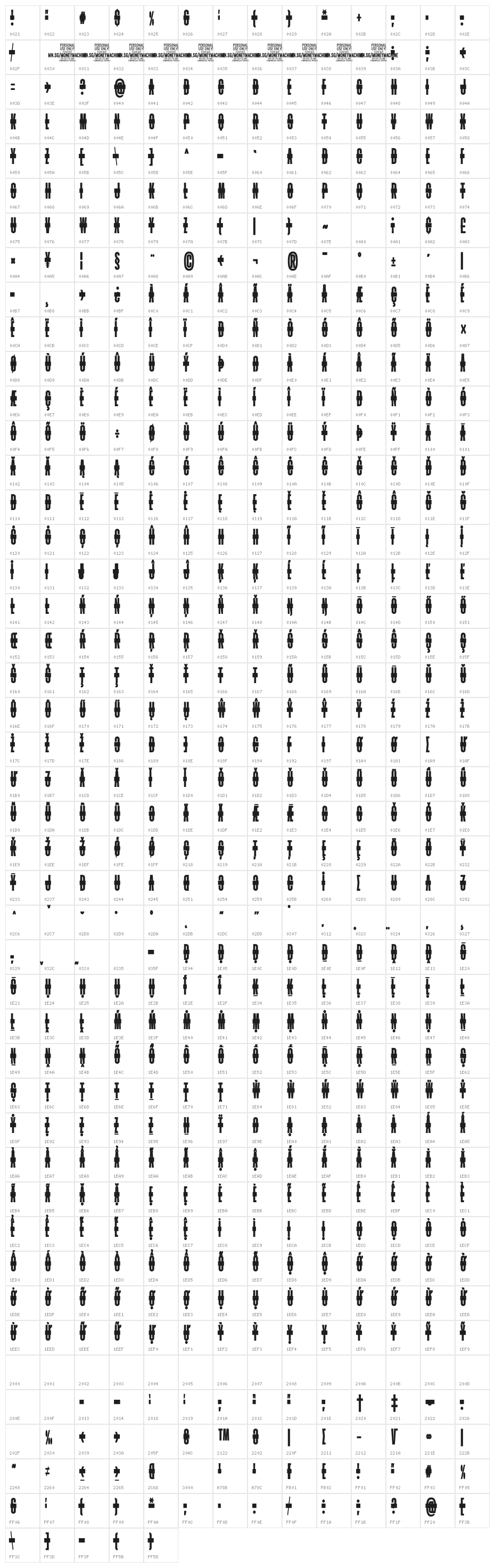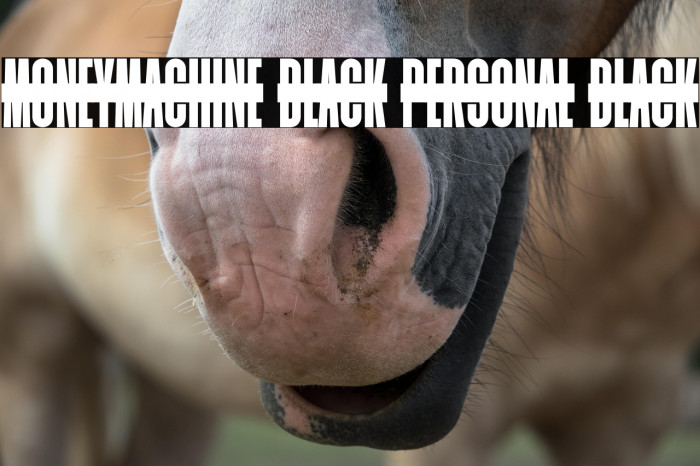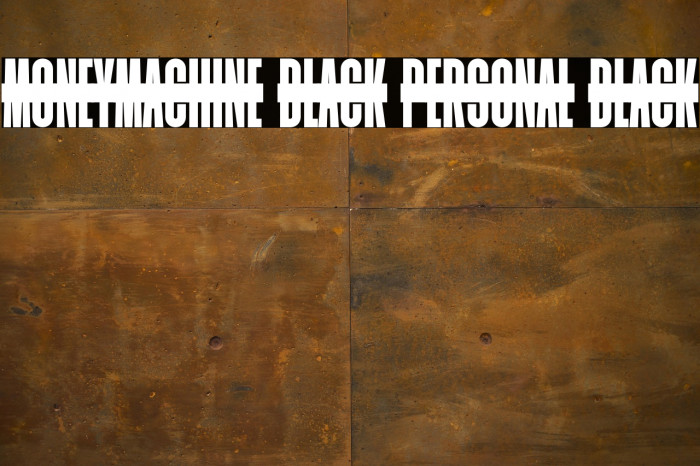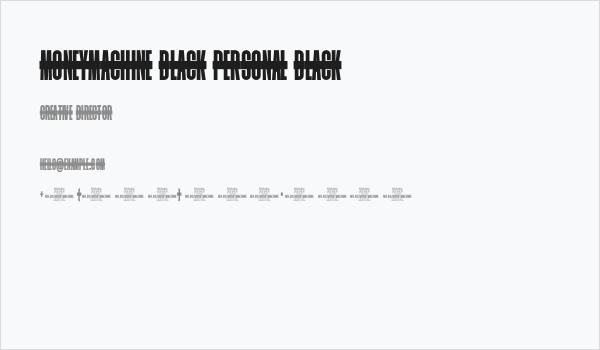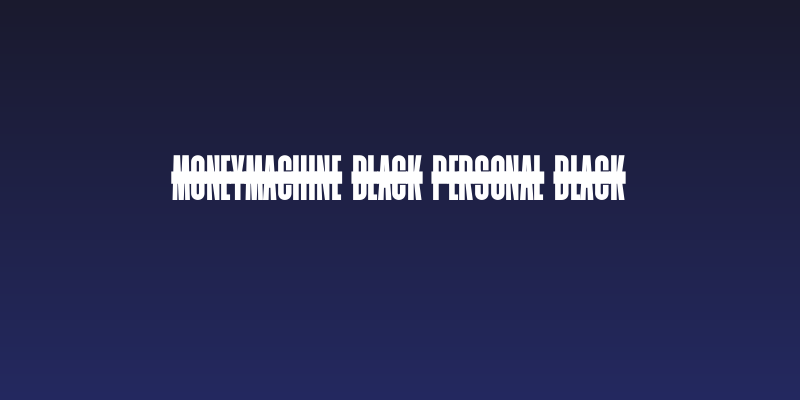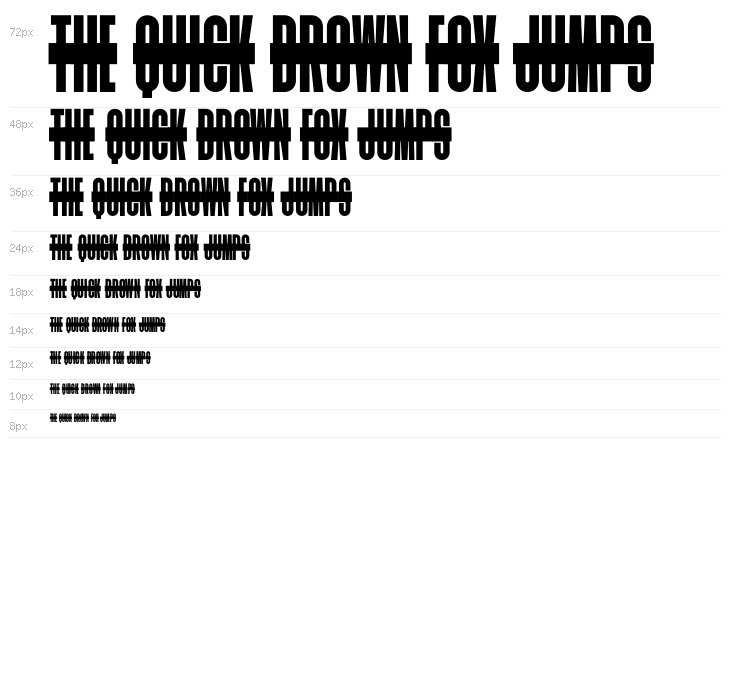
Moneymachine Black PERSONAL Black Font
Moneymachine Black PERSONAL Black Description
This font is a bold and striking display typeface characterized by its thick, blocky letters and high impact design. The uppercase and lowercase letters are designed with a uniform width, creating a strong and cohesive appearance. The font features a unique style where each character is crossed by a thick horizontal line, adding a sense of mystery and modernity. The numerals and special characters follow the same bold and distinctive style, making it suitable for attention-grabbing headlines and branding projects. Its geometric structure and high contrast between the thick strokes and the negative space make it stand out in any design.
Proposed ProjectsIdeal for branding, poster designs, album covers, and any project requiring a bold, modern aesthetic.